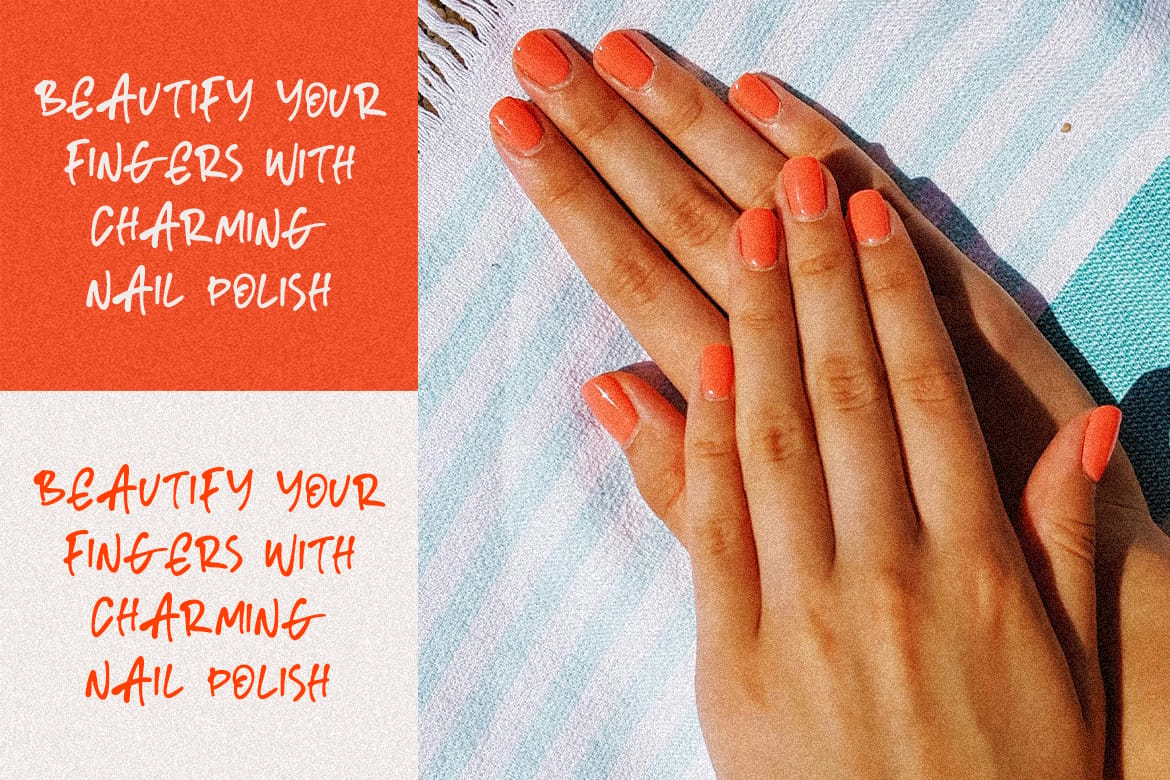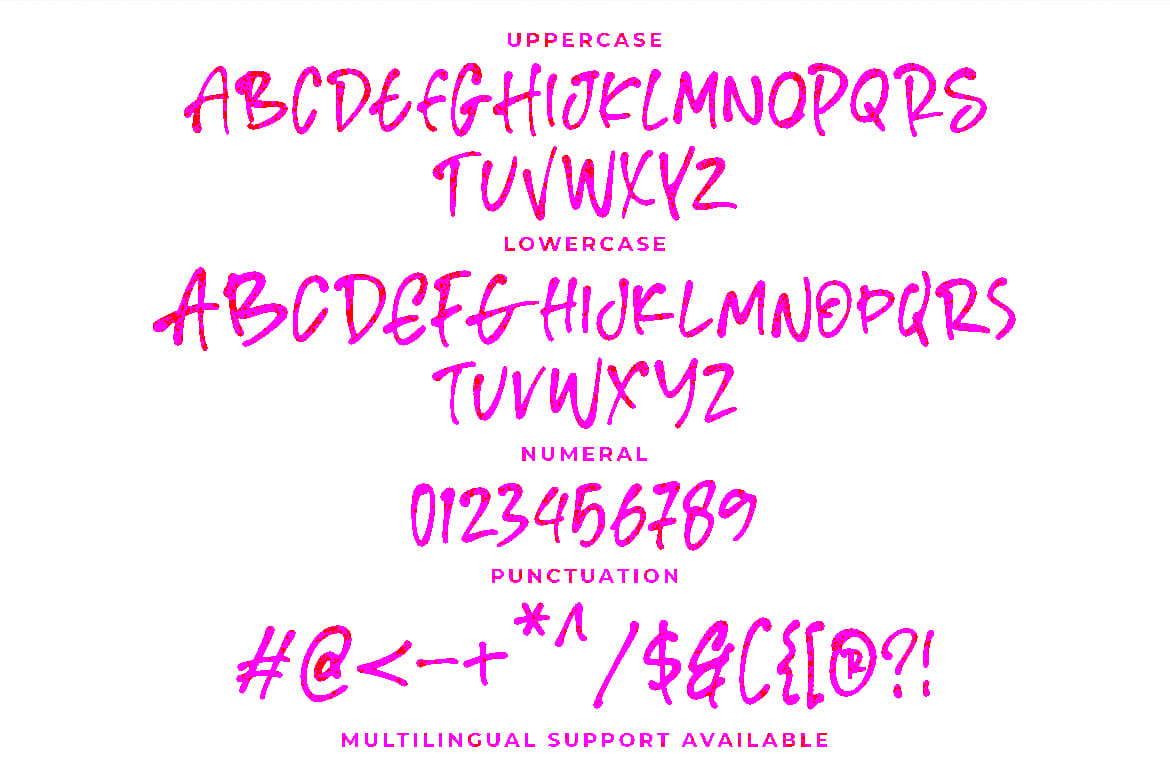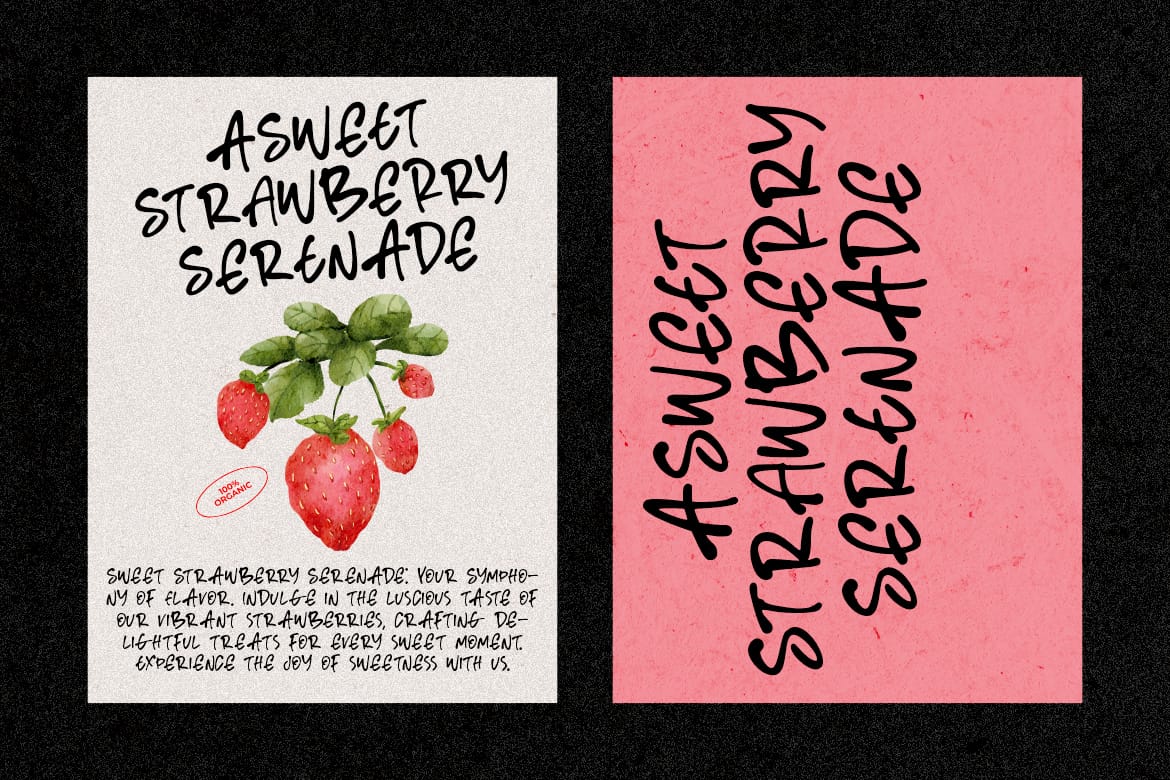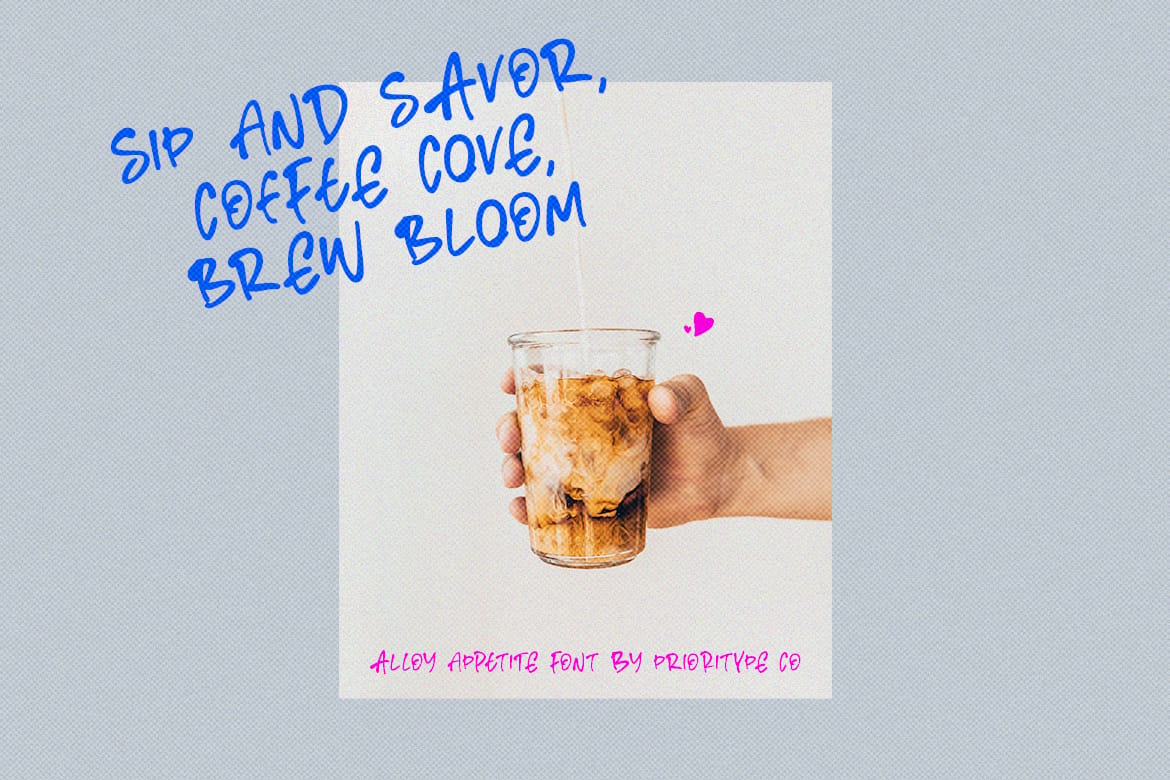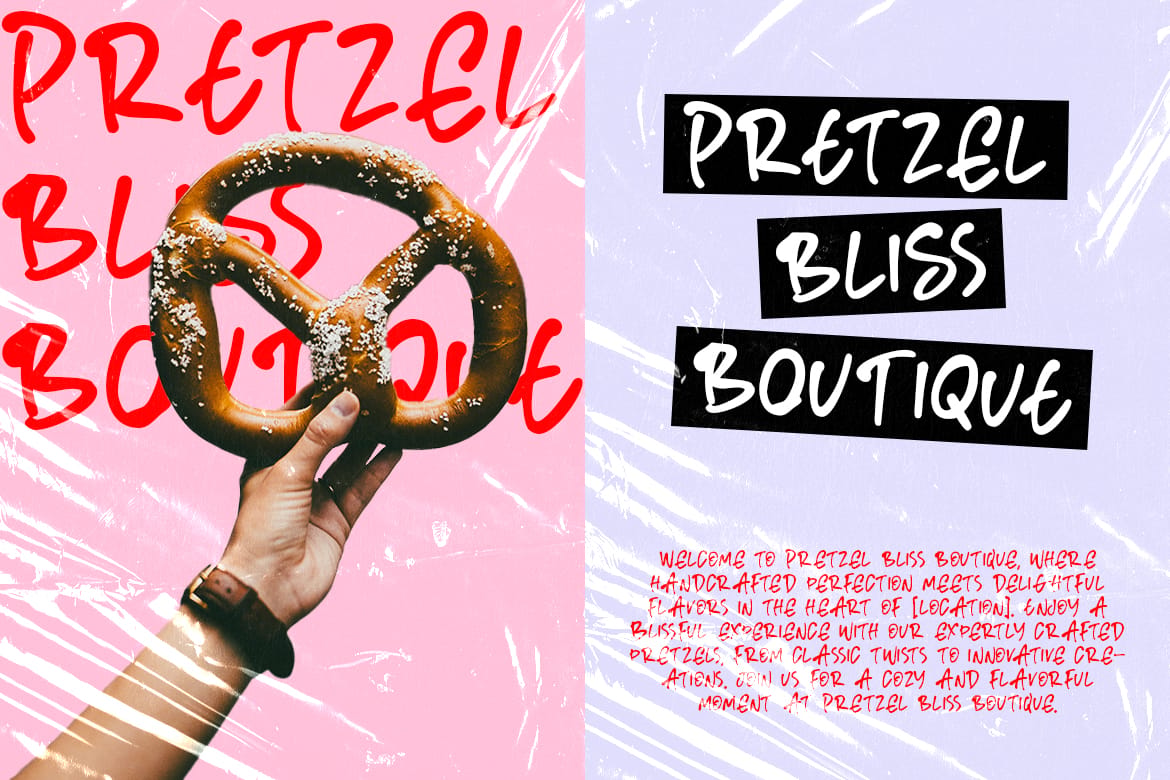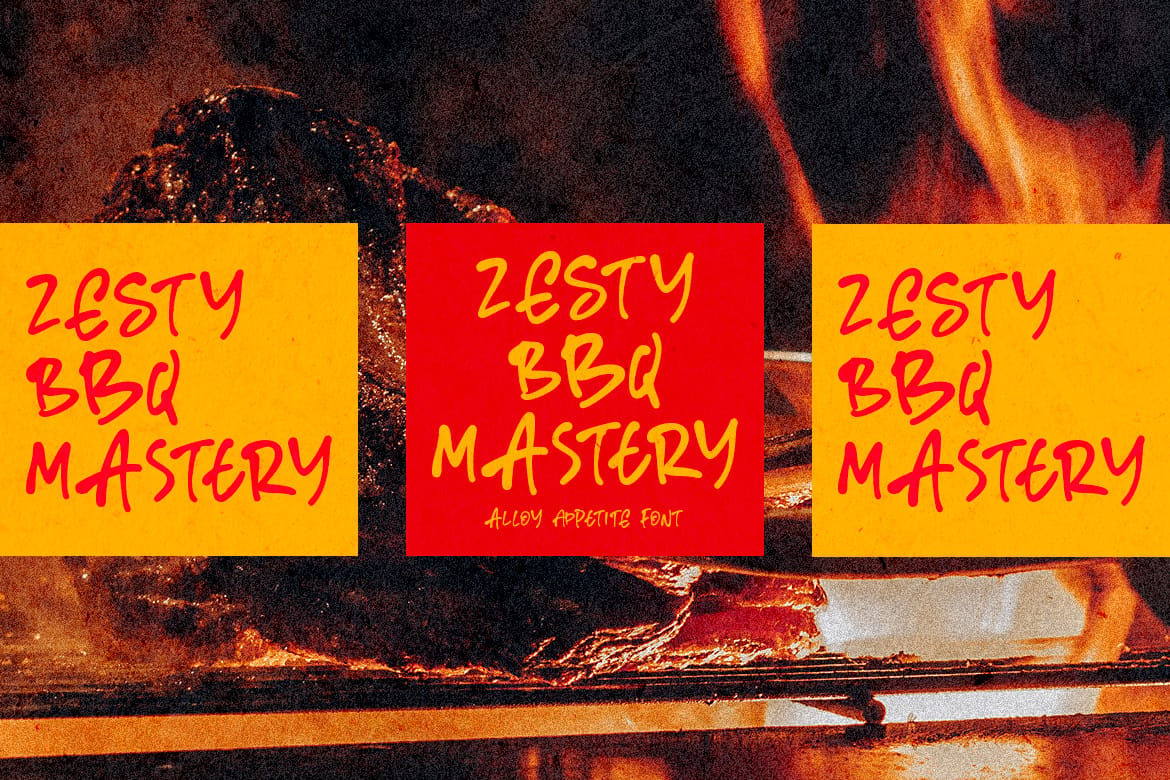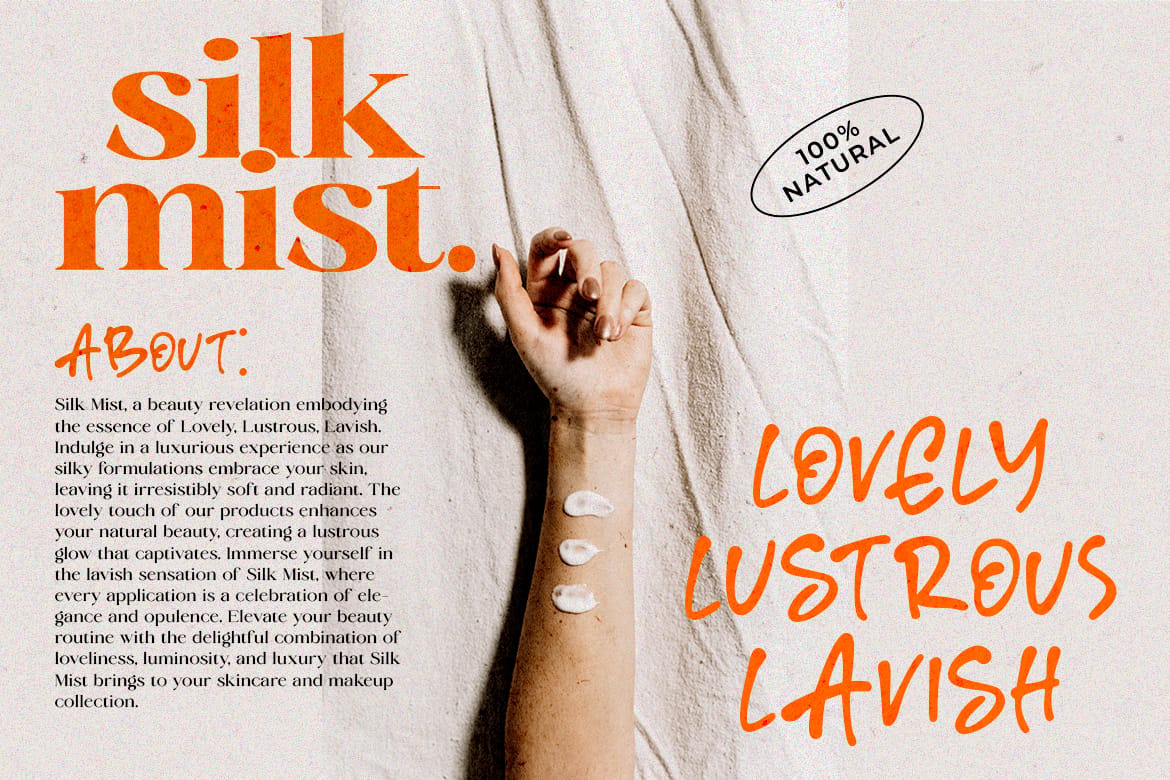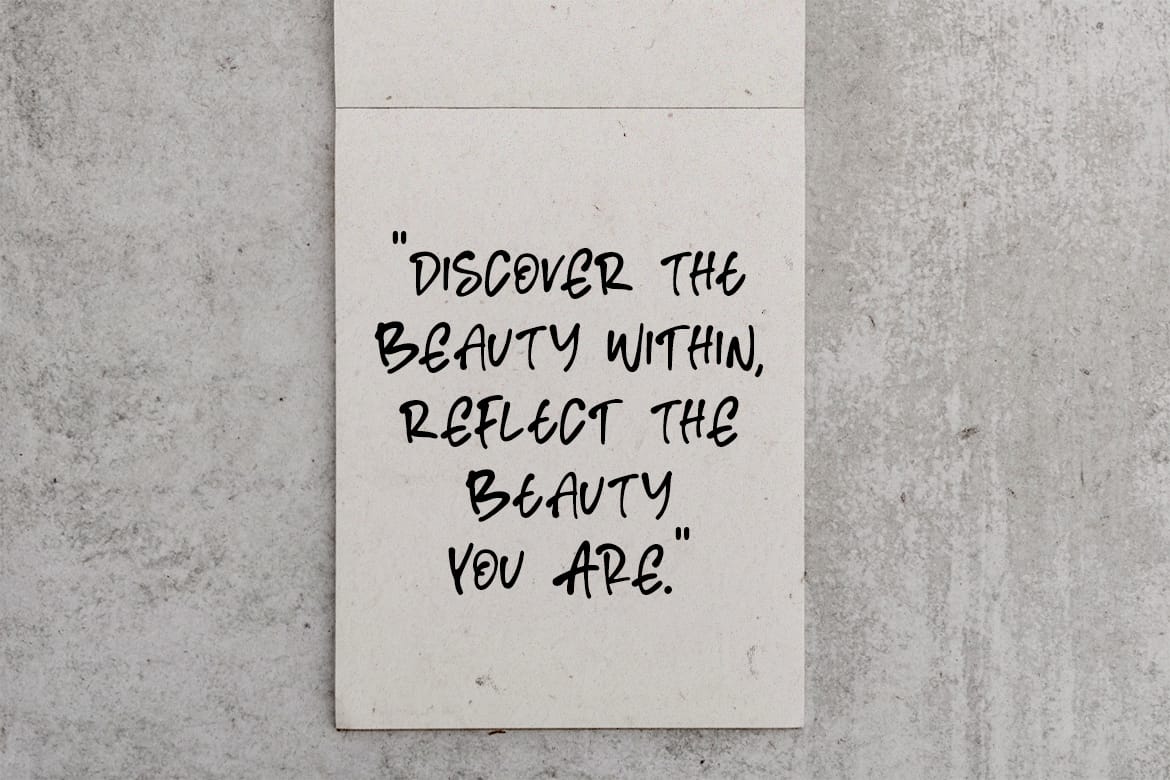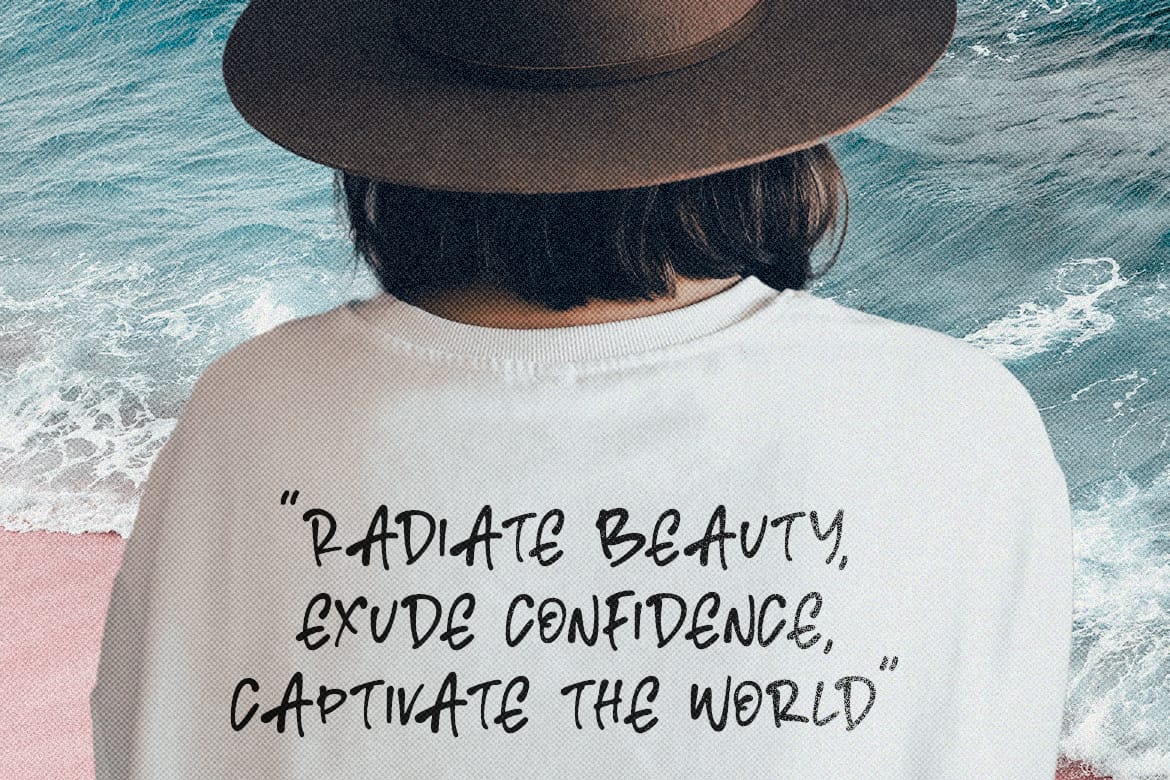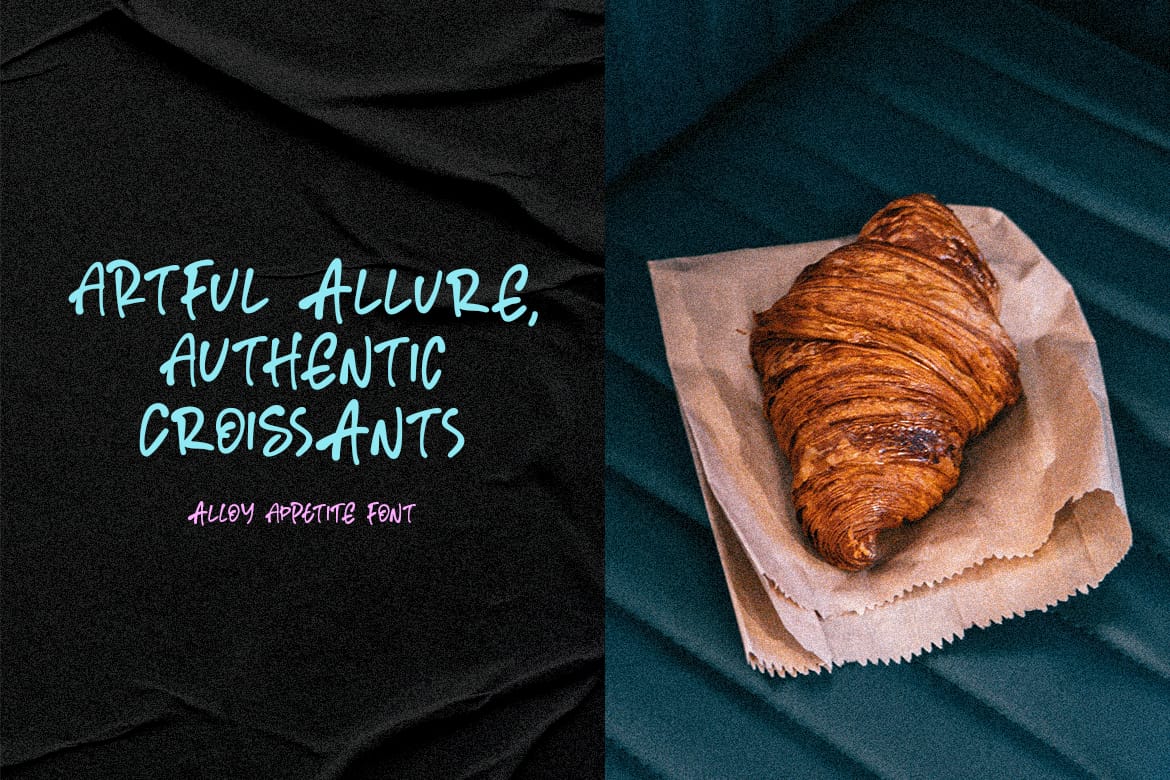
Alloy Appetite Font - Chic Handwritten Font
Handwritten font with thin thick ink that is irregular but very distinctive. By mixing upper and lower case letters, it makes it more natural, like it was drawn by a real hand. Suitable for branding designs, logos, quotes and much more.
Features: Uppercase, Lowercase, Numeral, Punctuation & Multilingual.
- Natural handwritten thin-thick ink style
- Mixed upper and lowercase for authenticity
- Ideal for branding, logos, and quotes